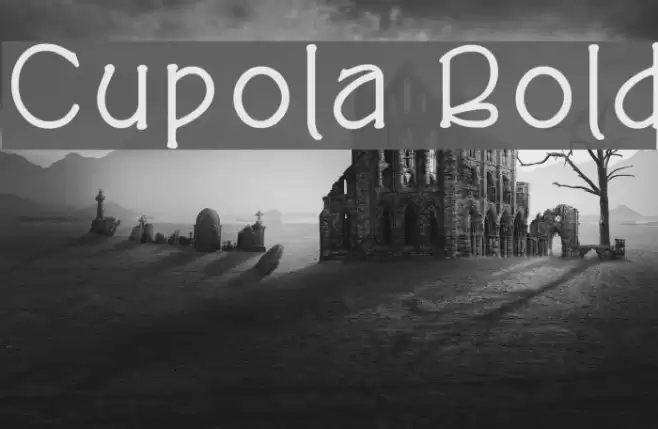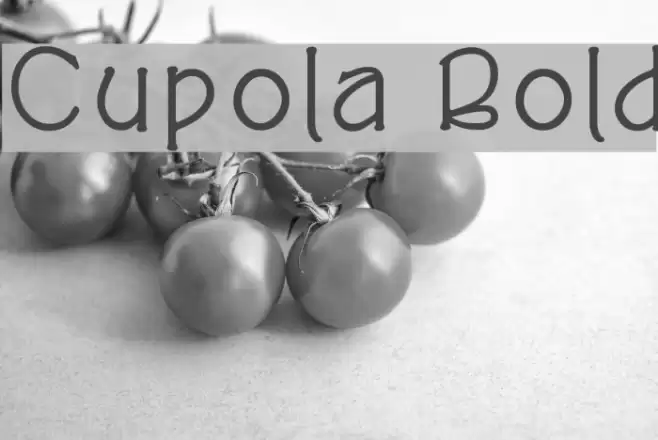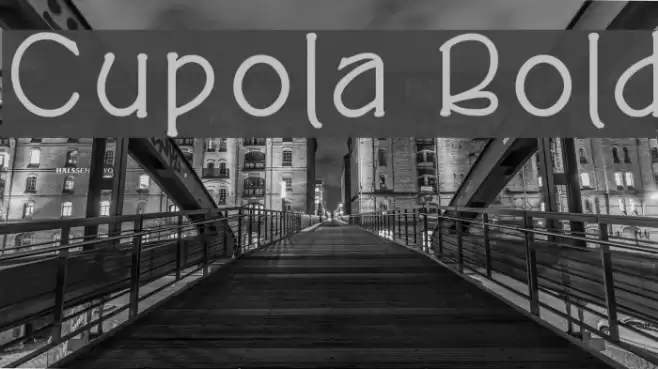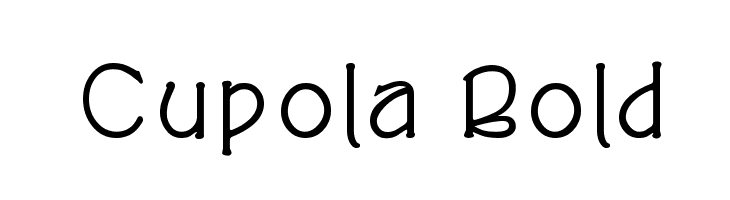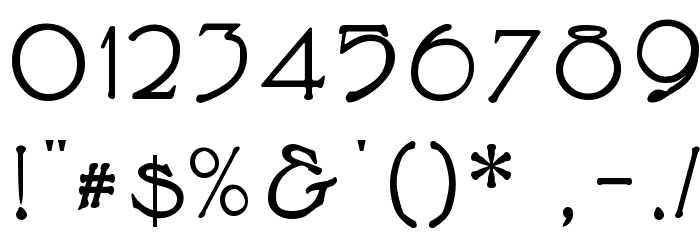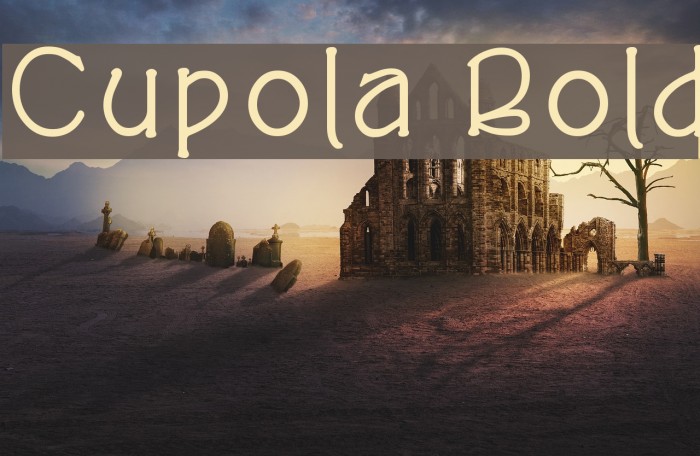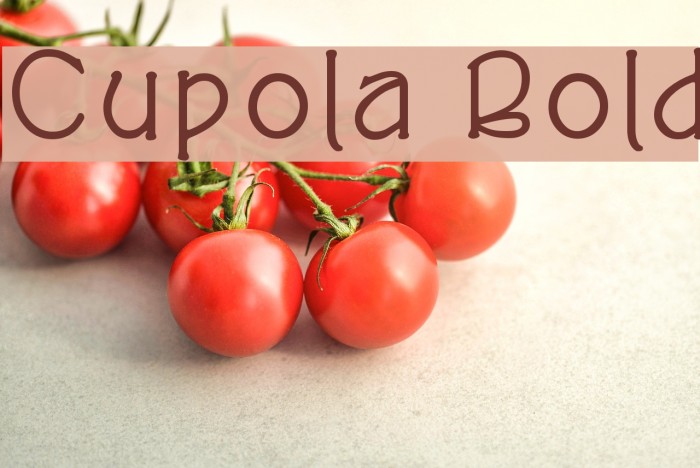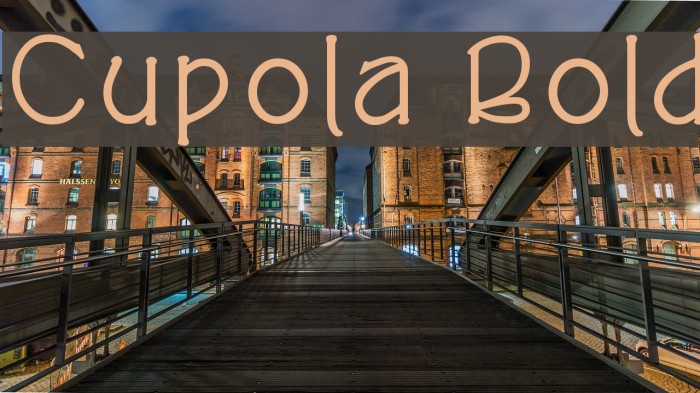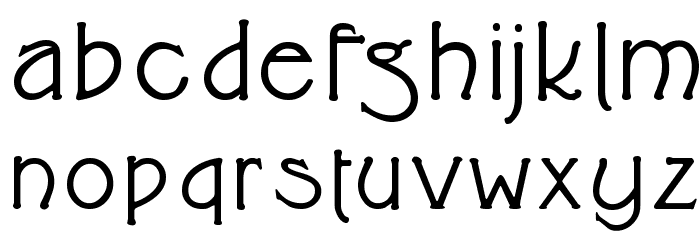
Cupola Bold Font
Cupola Bold Description
This font features a playful and whimsical design with a unique blend of curves and straight lines. The uppercase letters are bold and slightly condensed, giving them a strong presence, while the lowercase letters maintain a consistent flow with rounded edges. The numerals are distinct and easy to read, with a slight slant that adds to the overall playful aesthetic. Special characters are creatively designed, maintaining the font's quirky style. The font's overall appearance is both modern and decorative, making it suitable for a variety of creative projects.
A playful and whimsical font with bold, slightly condensed uppercase letters and rounded lowercase letters from Handwritten fonts.
- Proposed Projects: Ideal for children's books, playful branding, creative posters, and unique invitations.
- Overall Style: Playful, Modern, Decorative